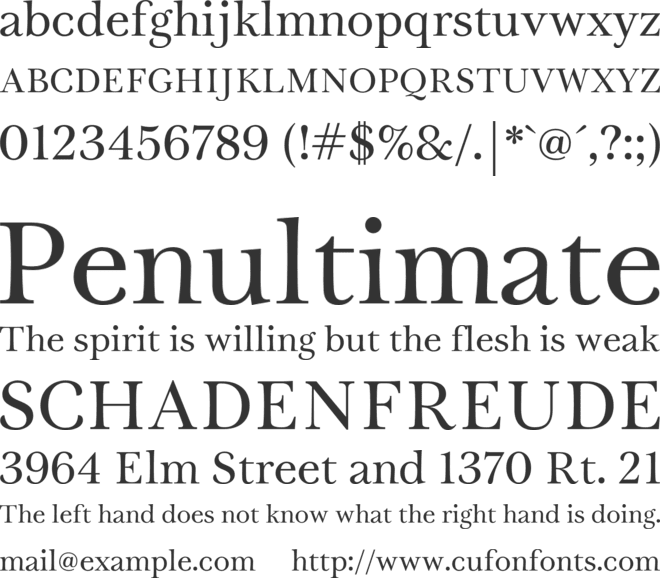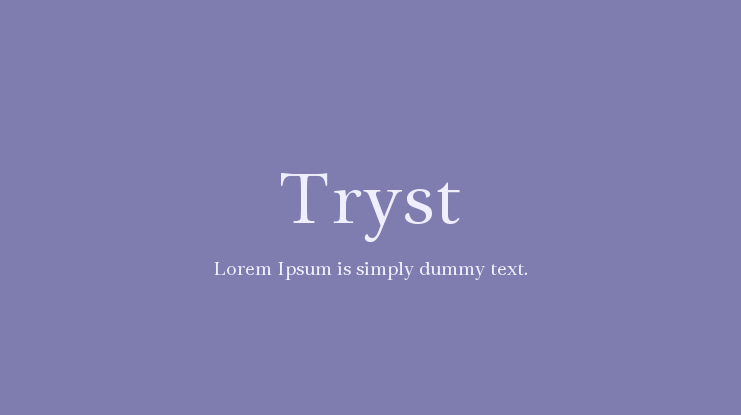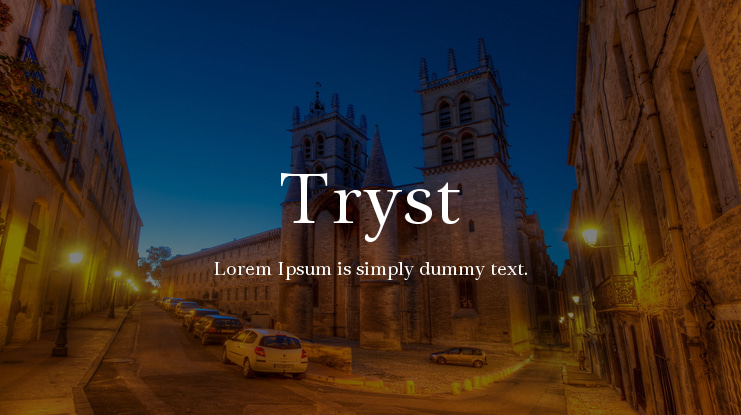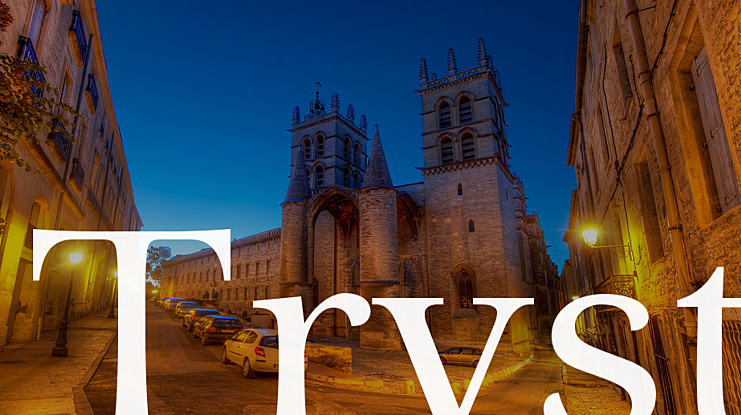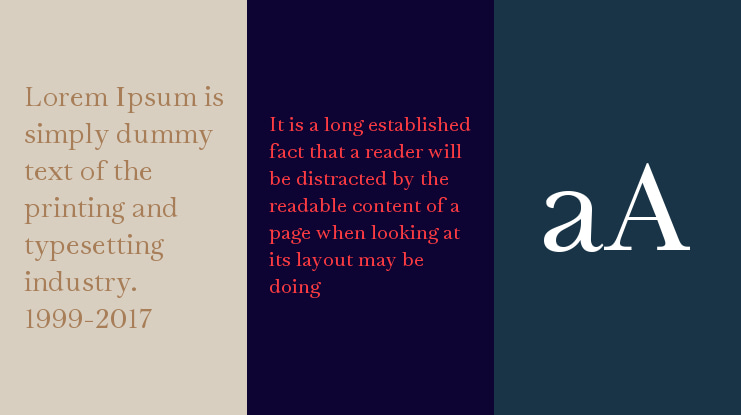
Tryst Font
Tryst is a friendly and elegant contemporary text face, inspired by 18th century transitional types. Individually, the letterforms are soft and organic, but when set together, there’s a refreshing crispness about them. Designed for text sizes, Tryst still works beautifully as a display face, due to its fairly high stroke contrast.